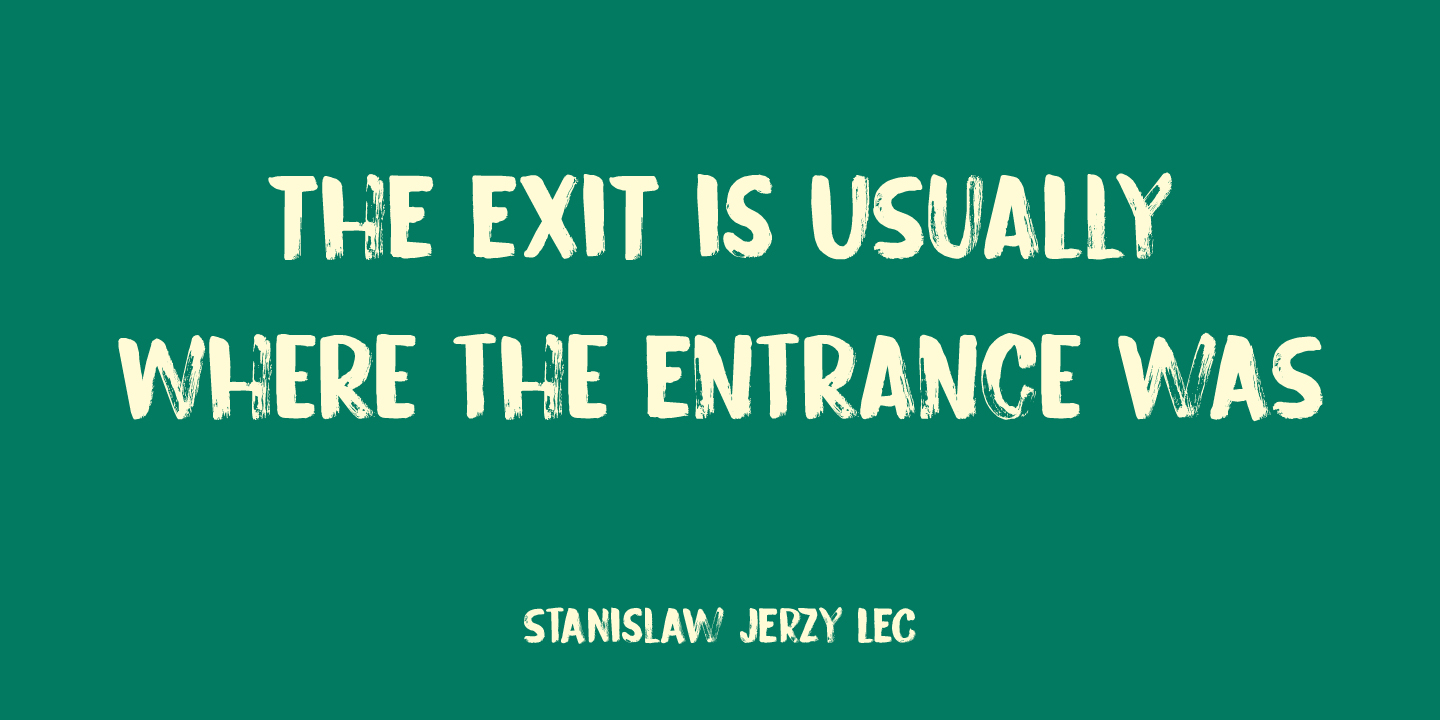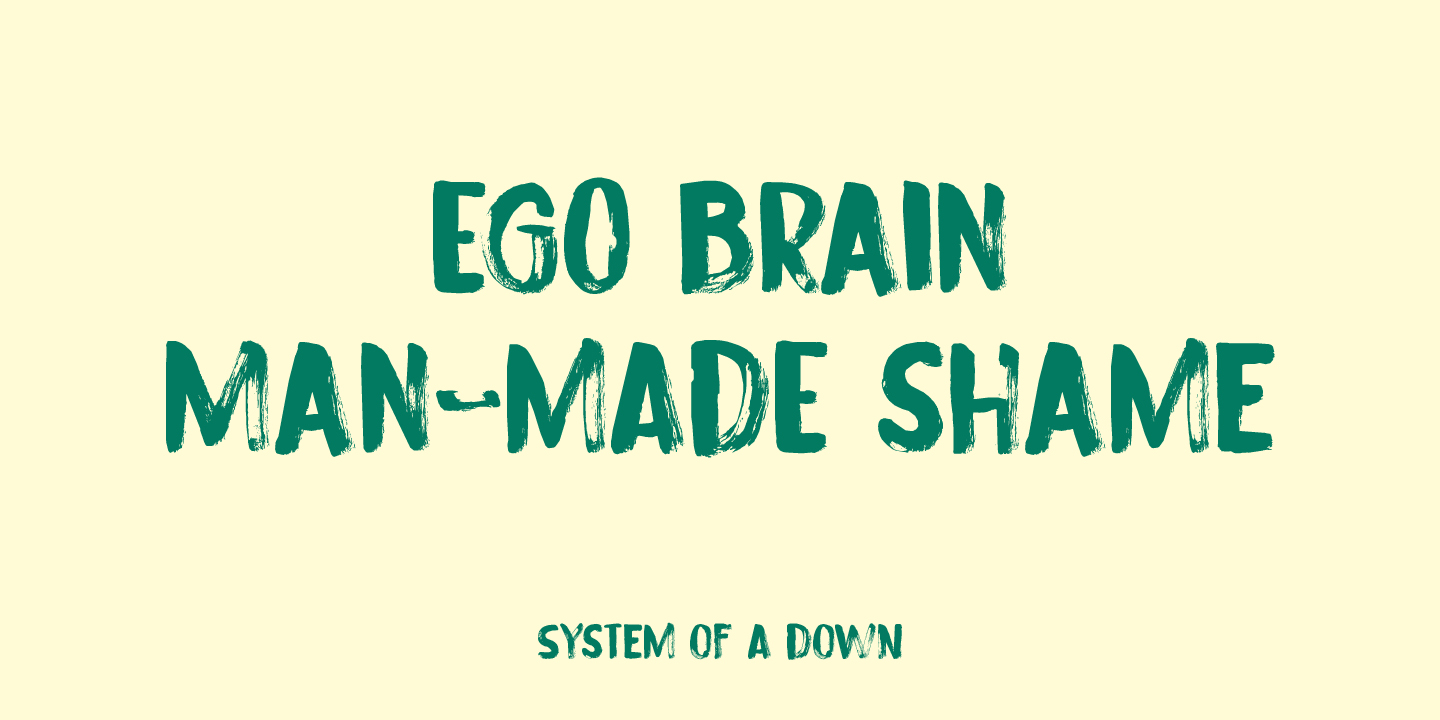
About Exit Strategy
Every exit is an entry somewhere else. It\’s a quote by British playwright Tom Stoppard and I really like it! Exit strategy is a rough brush font, which I made using Chinese ink (where would I be without my Chinese ink??) and the new batch of French paper…